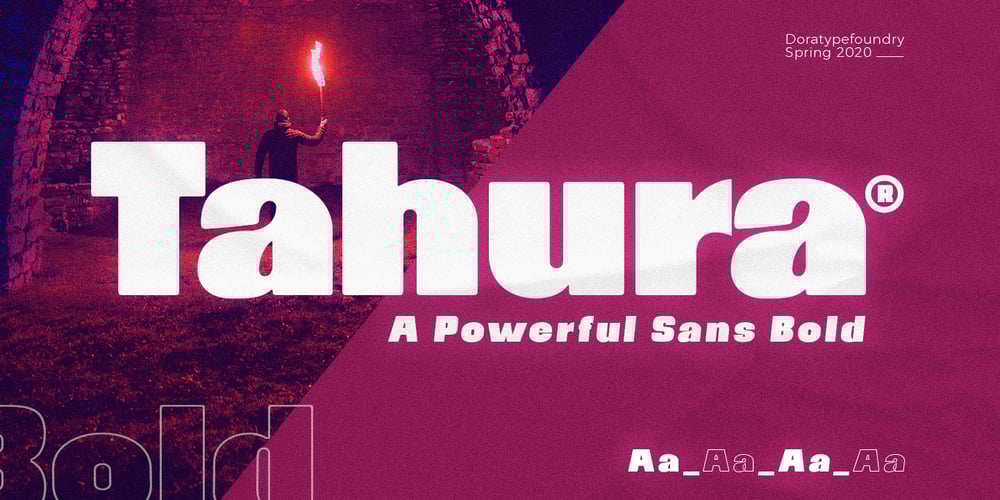
Tahura Font Family was designed by Zahratul Laila and published by Dora Typefoundry. Tahura contains 4 styles and family package options. Tahura is a classy typeface that is luxuriously bold and bold in style specifically for strong use, with a versatile touch. Consists of 4 styles, Regular, Italic, Outline, and Outline Italic and is very suitable for all medium or large uses because of the exact line shape, which made by flying machines. It is suitable for graphic design and screen use whatever your project is like branding, magazines, editorials, wedding invitations, logo design, posters, social media, and more! Also supports multilingual and PUA encoded!Feature UPPERCASE lowercase Number & Symbol International Glyphs Alternative Uppercase Alternative lowercase Ligatures Feature UPPERCASE lowercase Numbers & Symbols International Flying Machines Alternative Letters Alternative lowercase letters Ligature If you need anything else, just shoot me at the email at: doratypefoundry@gmail.comHope you enjoy it.